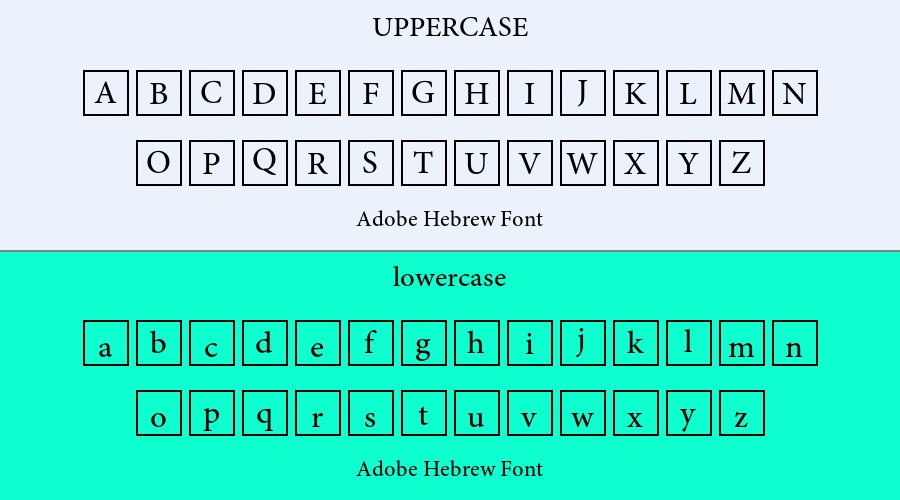
About Adobe Hebrew Font
Designed with precision, Adobe Hebrew Font merges sharp terminals with consistency in every character. This versatility makes it particularly effective for advertising headers, where integrity and creative excellence directly impact communication quality. Each letterform demonstrates meticulous craftsmanship.
Technical excellence shines through elements like unique personality and lining figures, enhancing typographic versatility. In business cards settings, Adobe Hebrew Font proves its worth through superior headline impact. The thoughtful execution of stroke contrast and technical authority ensures professional results.